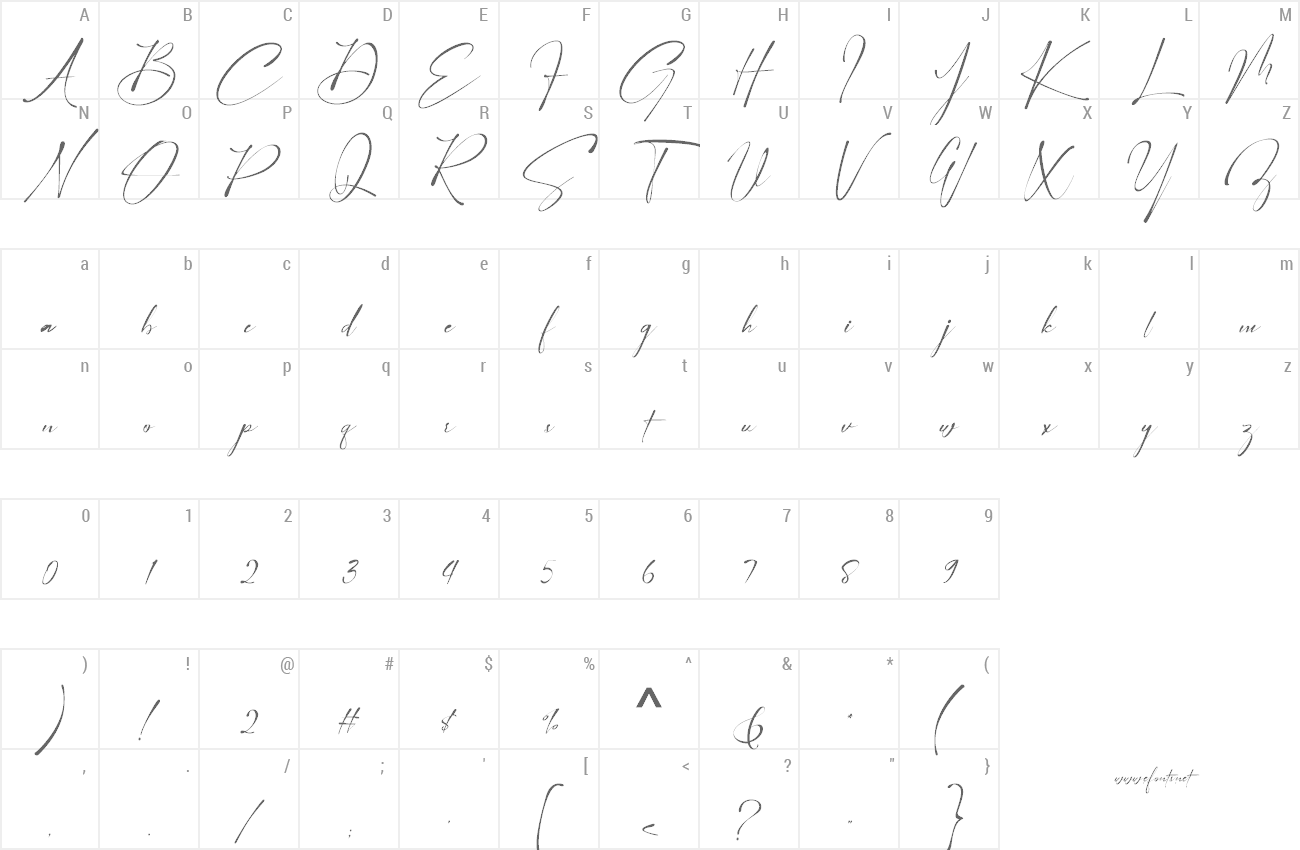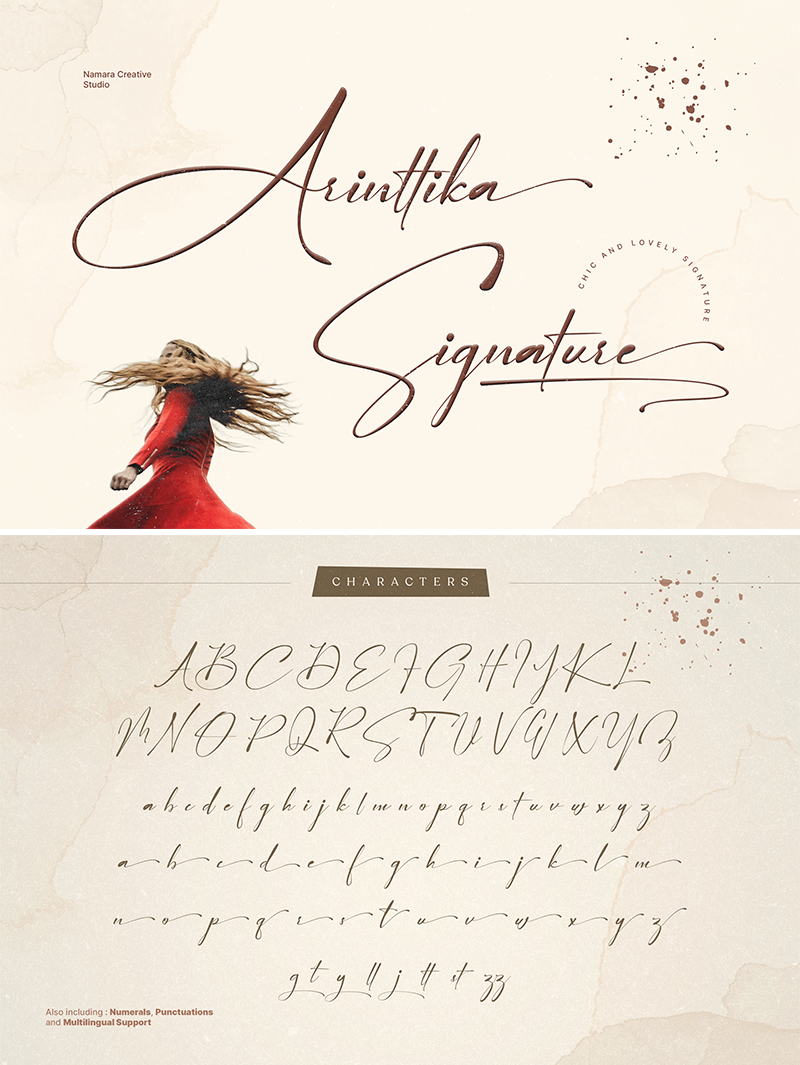
Preview and download Arinttika Signature Font. Created by Namara Creative Studio in Script Calligraphy styles with Demo license.
Arinttika is a natural and stylish signature font with a sense of elegant souls. By installing or using this font, you are agree to the Product Usage Agreement: - This font is PERSONAL USE ONLY. NO COMMERCIAL USE ALLOWED! - Link to purchase commercial license https://onedsgn.com/product/arinttika-signature - Any donation are very appreciated. Paypal link for donation : https://paypal.me/namaracreativestudio |